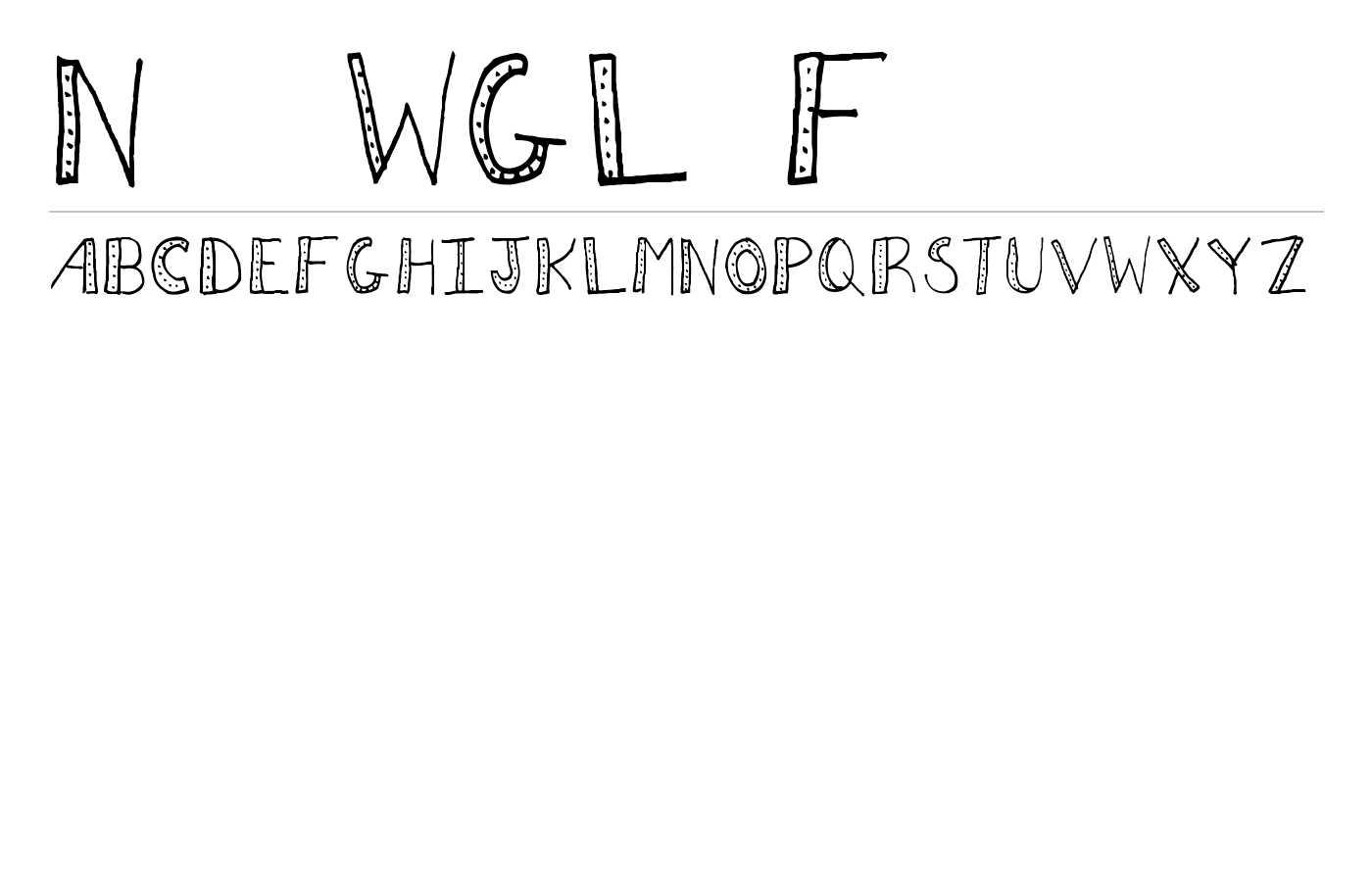
AEZdots is a playful, hand-drawn sans serif font featuring tall, narrow letterforms with whimsical dotted detailing inside select characters. Its informal and quirky style makes it perfect for creative projects, children’s designs, and casual branding that wants to convey friendliness and fun. This font works best for headlines, logos, and decorative text where a lighthearted, artistic impression is desired.
AEZdots Font
About AEZdots Font